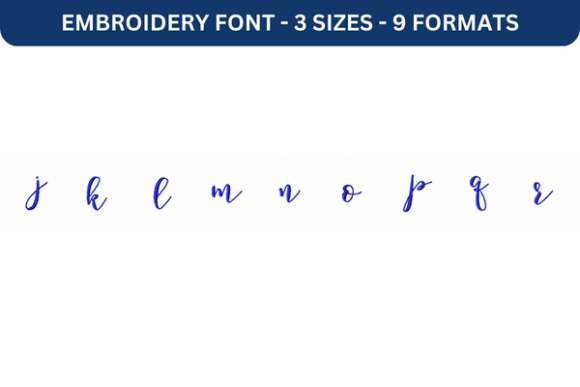
Storybook Font Lower J to R
As an embroidery designer with years of experience in crafting unique and marketable designs, I've had the chance to review a variety of machine embroidery designs. One that stands out for its versatility and charm is the Storybook Font Lower J to R. This embroidery font is ideal for anyone looking to add a personal touch to their craft fair product or handmade product offerings.
First Impressions: A Touch of Whimsy
The Storybook Font Lower J to R exudes a soft, whimsical vibe that feels like it belongs in a storybook. It's not overly decorative, but it has enough character to catch the eye without being overwhelming. The font strikes a balance between elegant and playful, making it suitable for a wide range of applications. Whether you're creating a tote bag design or an apron embroidery, this font can elevate the look of your finished product.
Where Storybook Font Lower J to R Shines
This font works exceptionally well on items that are both functional and decorative. For example, on a tea towel embroidery, it adds a charming touch that makes the item feel more personalized and special. On a cap or a fabric pouch, the font maintains its clarity and readability, even when placed on curved surfaces. It also looks great on embroidered patches, where the detail can be seen clearly without being too intricate.
For a craft fair booth, the Storybook Font Lower J to R can be used on a variety of products such as pillow covers, market bags, and handmade gifts. Its clean lines make it easy to spot from a distance, which is essential when trying to attract customers at a busy event. When paired with the right thread colors, it can create a cohesive look that aligns with your brand or theme.
Practical Selling and Production Points
One of the key advantages of the Storybook Font Lower J to R is its ease of use. It’s simple to understand at a glance, which is crucial for customers who are browsing through a table display. Whether it’s used as a small accent or a large focal point, the font remains legible and visually appealing.
When it comes to photography for online listings, this font performs well. Its distinct shapes and spacing ensure that it looks good in both close-up and wide shots. As an Etsy seller, this is important because it helps your digital embroidery file stand out among competitors. The font also has potential for batch production, especially if you're creating small shop product runs.
Careful-Use Notes
While the Storybook Font Lower J to R is versatile, there are a few considerations to keep in mind. If you're working with dense stitch areas or thick fabric, the font may lose some of its definition. Tiny details might not show up well on textured towels or dark fabrics. It's also important to check the hoop size and adjust the design accordingly for curved surfaces like caps.
Stitch density is another factor to consider. Too much density can cause the design to pucker or distort, especially on lightweight fabrics. Using the right stabilizer can help maintain the integrity of the design. Always test the font on scrap fabric before committing to a larger project.
Impact on Visual Appeal and Customer Engagement
The Storybook Font Lower J to R enhances the visual appeal of any product it's applied to. It draws attention without being flashy, which is perfect for a booth display that needs to stand out. Customers often gravitate towards handmade products that feel unique and thoughtful, and this font contributes to that perception.
From a branding perspective, using a consistent font across your product line can help reinforce your identity. Whether you're selling commercial embroidery or creating a boutique maker collection, the Storybook Font Lower J to R offers a level of quality that reflects well on your work. It also adds value to your finished product, making it more desirable to buyers who appreciate craftsmanship.
Embroidery Designer Notes
Before finalizing any project, I always recommend testing the Storybook Font Lower J to R on different fabric textures to see how it performs. Check the thread colors against the fabric to ensure contrast and visibility. Review the spacing and adjust as needed to avoid overcrowding or gaps.
It's also wise to create at least one real mockup before mass-producing. This allows you to see how the font looks in person and make any necessary adjustments. Compare fabric colors to ensure the design complements the background. Lastly, confirm the commercial licensing terms before selling finished products, especially if you're targeting a broader market.
Overall, the Storybook Font Lower J to R is a valuable addition to any embroidery designer's toolkit. It offers a blend of style and functionality that can enhance your craft fair product, handmade product, and Etsy listings. With careful consideration and proper execution, this font can help you create standout items that resonate with customers and boost your sales.